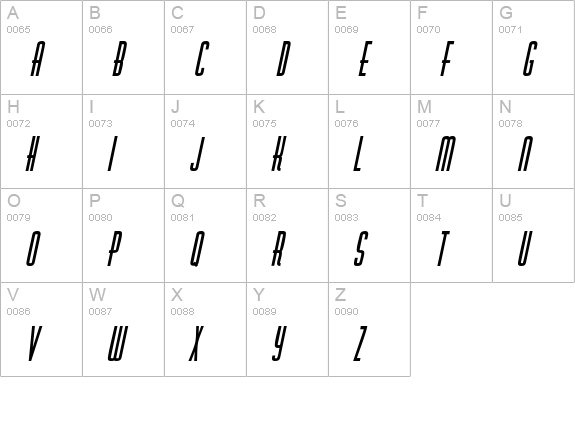
RobaloSCapsSSK BoldItalic Font Details
RobaloSCapsSSK BoldItalic is a striking and bold font that exudes confidence and sophistication. Its slanted italic style adds a touch of elegance to any design project, making it perfect for headings, titles, and other prominent text. This font features strong, sharp lines and curves that command attention, while its uppercase letters are designed to make a bold statement. The RobaloSCapsSSK BoldItalic font is versatile and can be used in a variety of design applications, from print materials to digital projects. The best part is that this font is completely free to download at FontsMarket.com. Whether you're a designer looking to add a touch of flair to your work or a business owner in need of a standout font for branding, RobaloSCapsSSK BoldItalic is sure to make an impact. Download it today and elevate your designs with this eye-catching typeface.